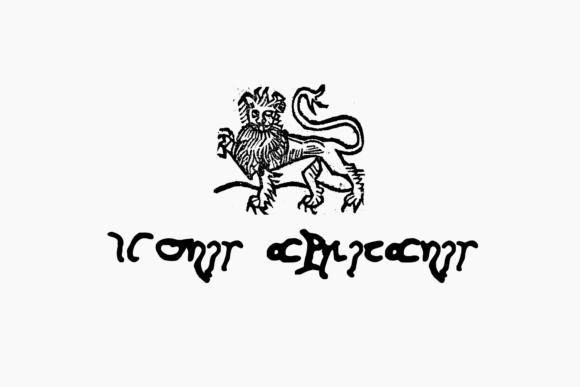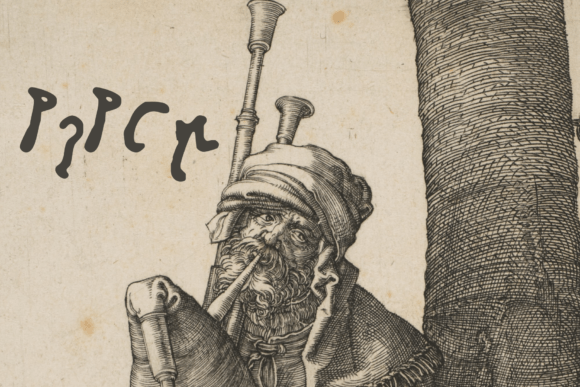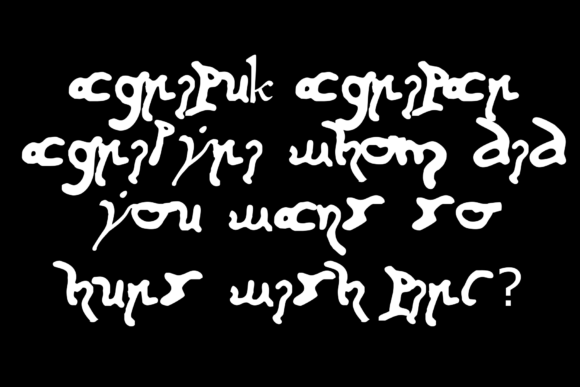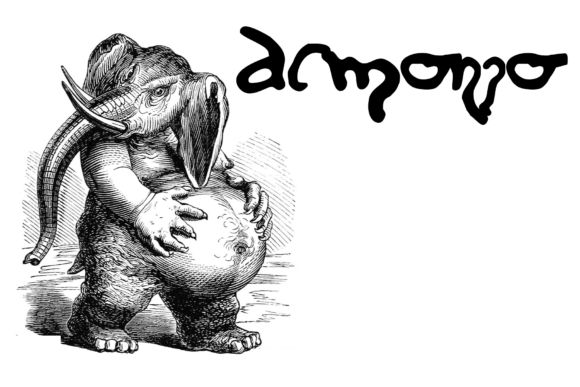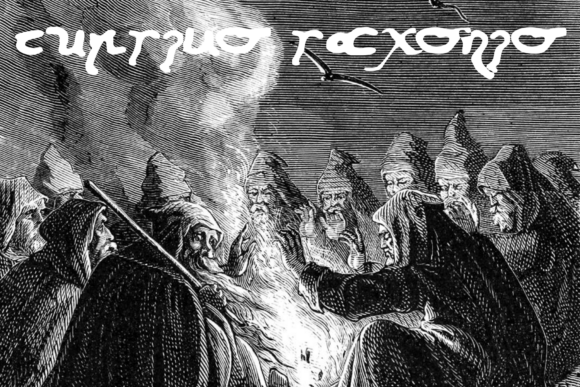
Cursivo Saxonio Font: Unveiling the Mystique of Ancient Hand-Lettering
The Cursivo Saxonio font is a captivating typeface that draws inspiration from the eerie and mysterious world of H.P. Lovecraft’s literary masterpiece, The Case of Charles Dexter Ward. This font is a meticulous recreation of the authentic “Insularis” or “Cursivo Saxonio” hand-lettering style prevalent in Britain during the 8th to 11th centuries. For designers, crafters, and typography enthusiasts, Cursivo Saxonio offers a unique opportunity to infuse their projects with a touch of ancient mystique.
The Origins of Cursivo Saxonio
The term “Cursivo Saxonio” refers to the distinctive hand-lettering style developed in Saxon England during the early medieval period. Characterized by its flowing, cursive strokes and intricate ligatures, this script was used in illuminated manuscripts and other written materials. The Cursivo Saxonio font takes its cues from these ancient texts, meticulously reproducing the essence of this long-lost art form.
A Glimpse into the Past: The Accompanying Poster
The poster that accompanies the Cursivo Saxonio font features a sample text that reads: “Corwinus necandus est. Cadaver aq(ua) forti dissolvendum, nec aliq(ui)d retinendum. Tace ut potes.” Translated from Latin, the text roughly translates to “Corwinus must be killed. The corpse must be dissolved in strong water, and nothing retained. Keep it as you can.” This ominous phrase not only echoes the dark, mystical atmosphere of Lovecraft’s works but also showcases the font’s capabilities in rendering complex, ancient texts.
Design and Crafting Applications
For designers and crafters, the Cursivo Saxonio font offers a wealth of creative possibilities. Whether you’re working on a project that requires a touch of historical authenticity or simply seeking to add a dash of mystique to your designs, this font is an excellent choice. Here are a few ways you can incorporate Cursivo Saxonio into your work:
- Typography Projects: Use Cursivo Saxonio to create eye-catching typography projects, such as posters, flyers, or brochures, that require a distinctive, historical flair.
- Calligraphy and Hand-Lettering: Cursivo Saxonio is an excellent reference for calligraphy and hand-lettering enthusiasts. Study the font’s intricate strokes and ligatures to improve your skills in these ancient arts.
- Stationery and Invitations: Add a touch of elegance and sophistication to your stationery, invitations, or greeting cards with the Cursivo Saxonio font.
- Digital and Print Media: Use Cursivo Saxonio in your digital and print media projects, such as magazines, newspapers, or websites, to create a unique and captivating visual identity.
Characteristics and Features
The Cursivo Saxonio font boasts several distinctive characteristics and features that make it an attractive choice for designers and crafters:
- Authenticity: Cursivo Saxonio is a genuine recreation of the ancient “Insularis” or “Cursivo Saxonio” hand-lettering style, ensuring that your projects exude historical authenticity.
- Intricate Ligatures: The font features intricate ligatures and strokes that reflect the ornate, flowing nature of the original hand-lettering style.
- Legibility: Despite its ornate nature, Cursivo Saxonio remains surprisingly legible, making it suitable for a wide range of applications.
The Cursivo Saxonio font is a remarkable typeface that offers designers and crafters a unique opportunity to tap into the mystique of ancient hand-lettering. With its authentic recreation of the “Insularis” or “Cursivo Saxonio” script, this font is perfect for projects that require a touch of history, mystery, and elegance. Whether you’re a typography enthusiast, a designer, or a crafter, Cursivo Saxonio is an excellent addition to your creative toolkit.